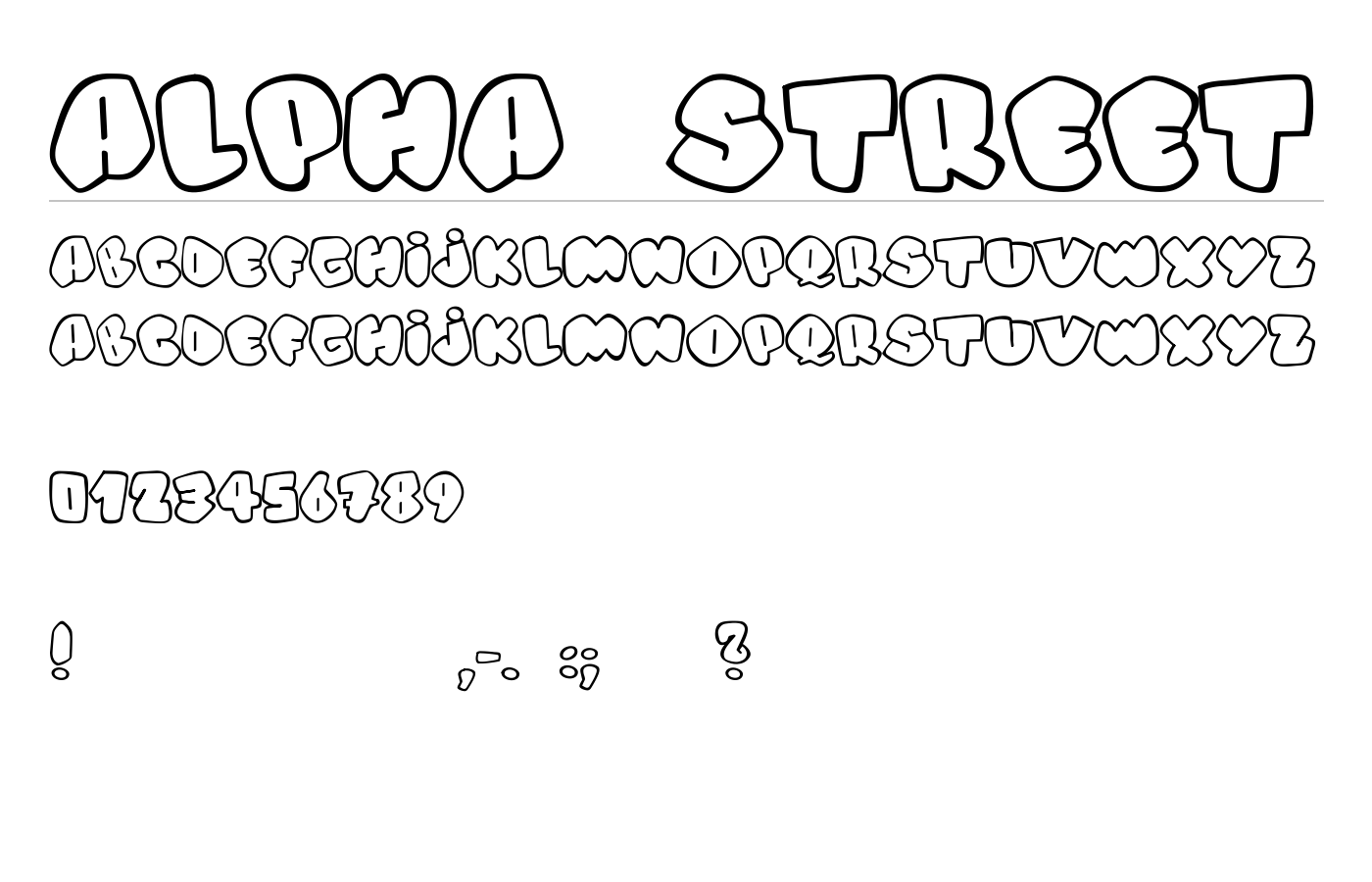
Alpha Street is a playful and bold display font with a rounded, bubbly sans serif style that radiates fun and youthful energy. Its thick, soft-edged letterforms and hand-drawn outline effect make it perfect for casual, eye-catching designs like posters, children’s materials, and vibrant branding that aims to feel approachable and lively. This font works best in large sizes where its friendly personality and unique shapes can really stand out.
Alpha street Font